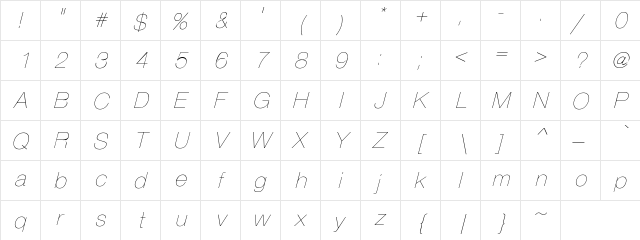
PartridgeObl-Th Regular
Design Context for PartridgeObl-Th Typeface
PartridgeObl-Th takes a measured approach to typography — its balanced proportions and neutral character make it a reliable workhorse for both digital and print work.